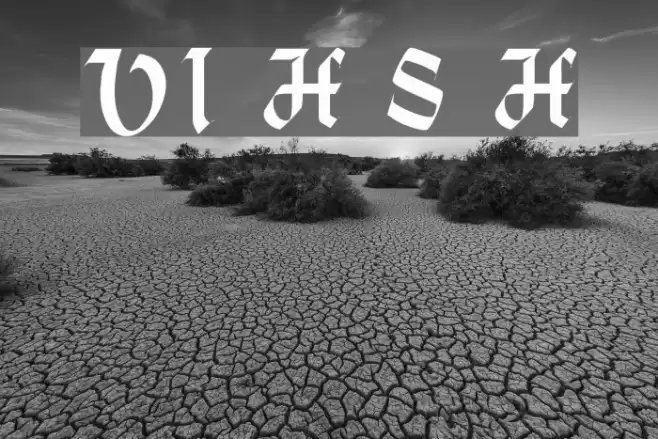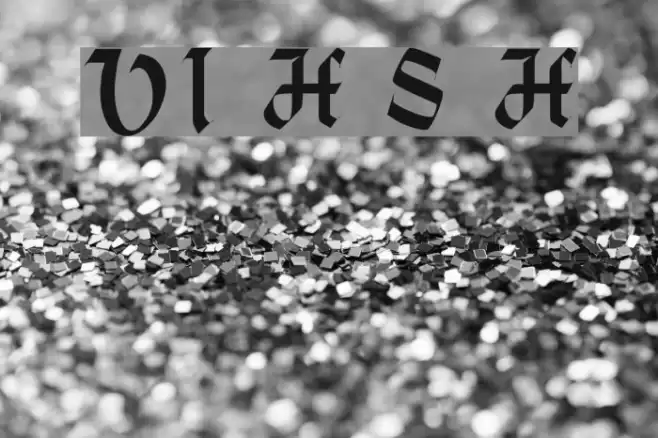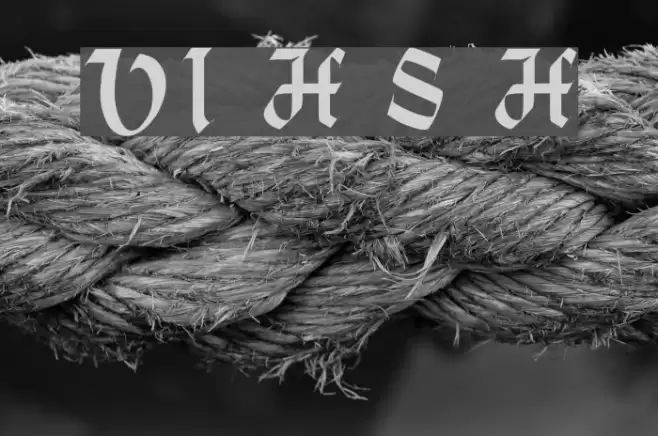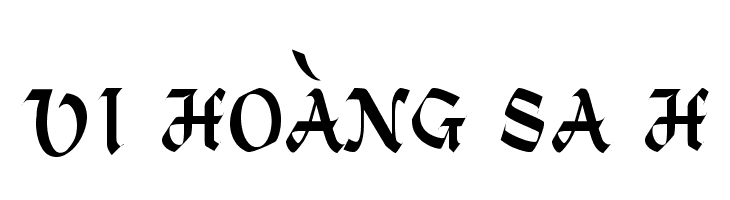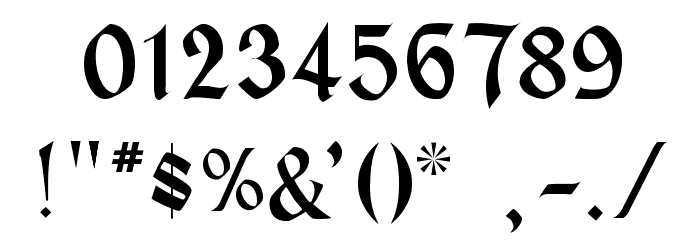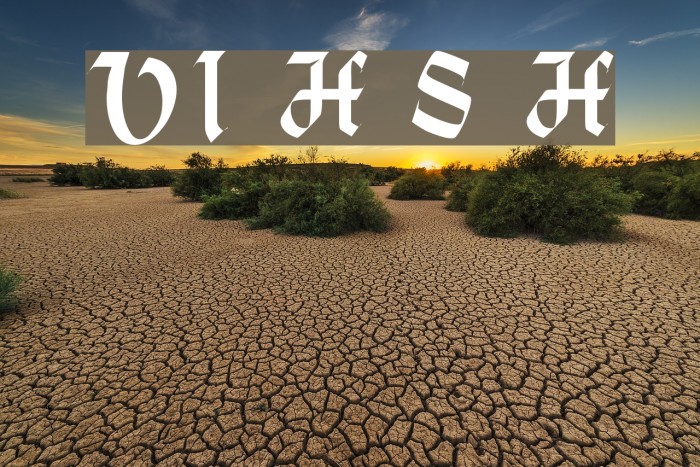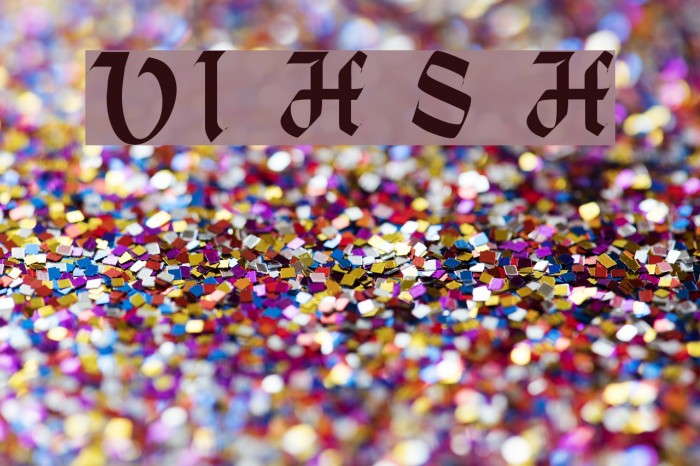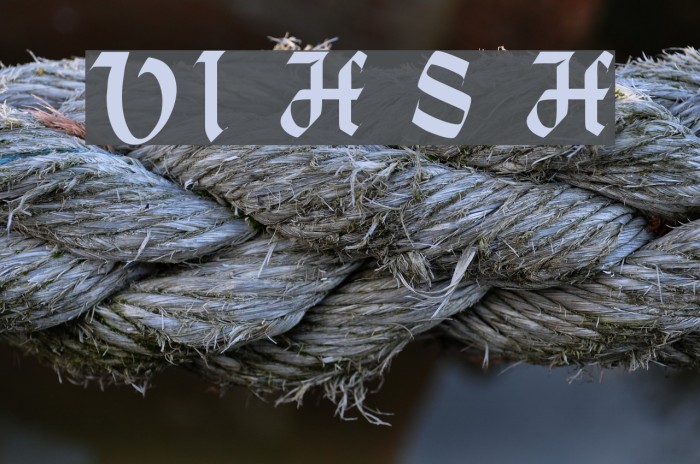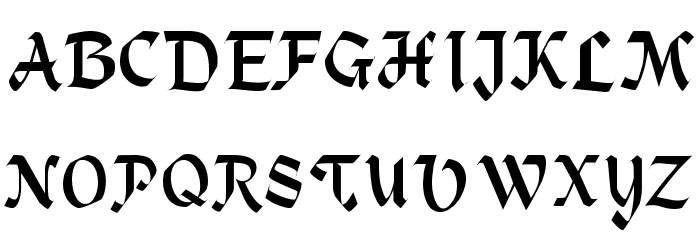
VI Hoàng Sa H Font
VI Hoàng Sa H Description
This font features a bold and striking blackletter style, characterized by its sharp, angular lines and dramatic flourishes. The uppercase letters exhibit a strong presence with their intricate design, while the lowercase letters maintain a consistent style that complements the uppercase. The numerals are equally bold, ensuring they stand out in any context. Special characters are designed with the same attention to detail, making them suitable for decorative purposes. The overall appearance is reminiscent of medieval script, offering a historical and formal aesthetic.
A bold blackletter font with sharp, angular lines and dramatic flourishes from Uncategorized fonts.
- Proposed Projects: Suitable for projects requiring a historical or formal touch, such as certificates, invitations, or branding for luxury products.
- Overall Style: Vintage
- Use Case: Headlines, Logos, Decorative text